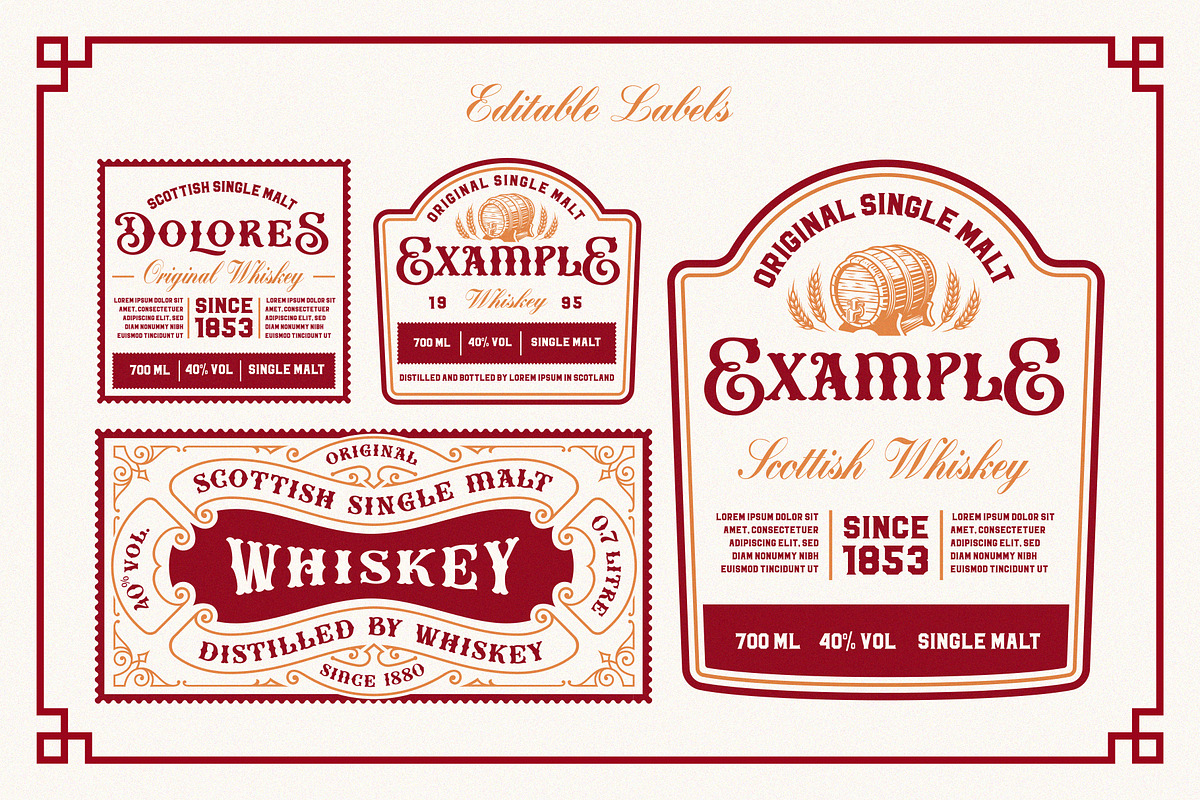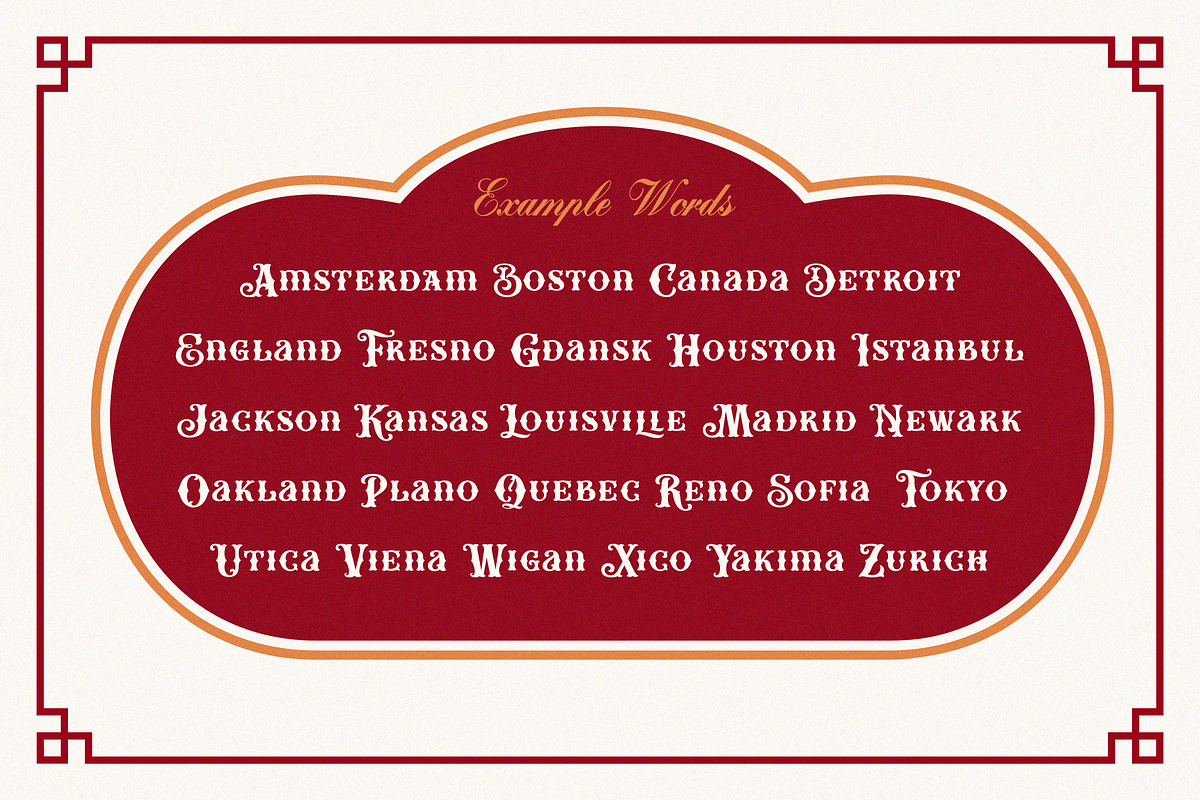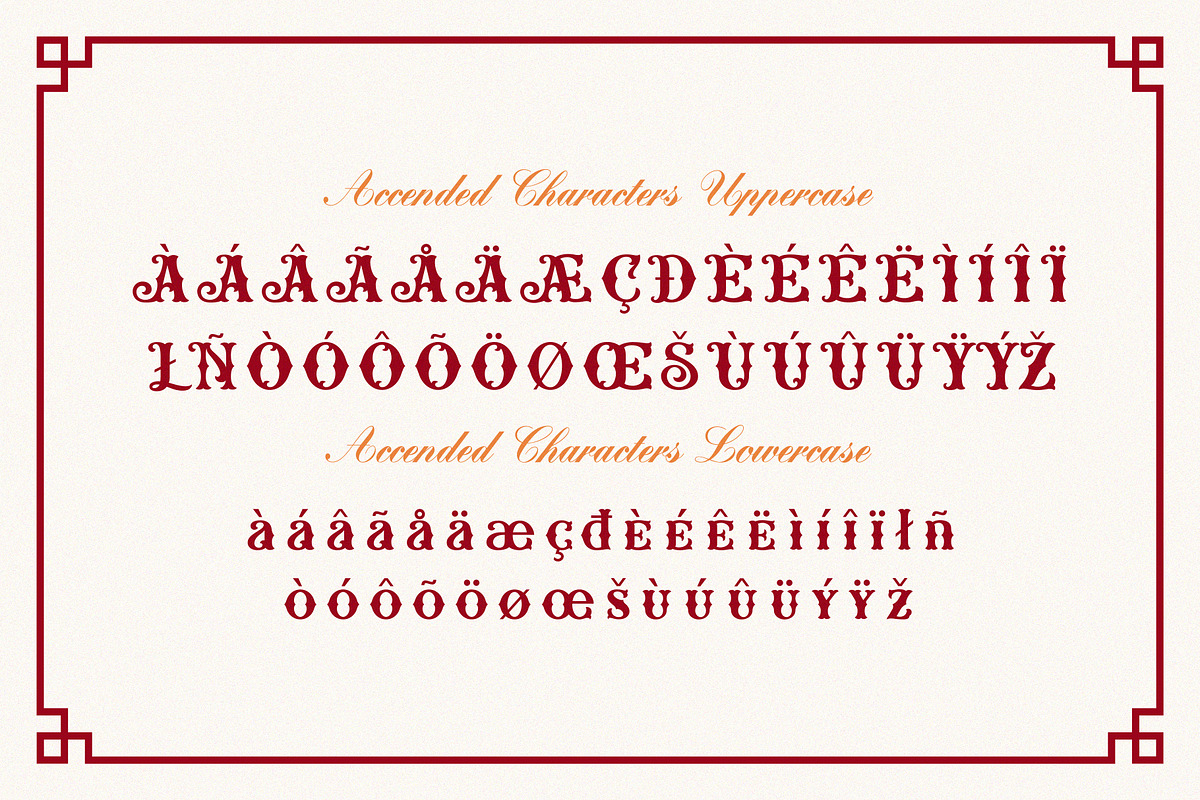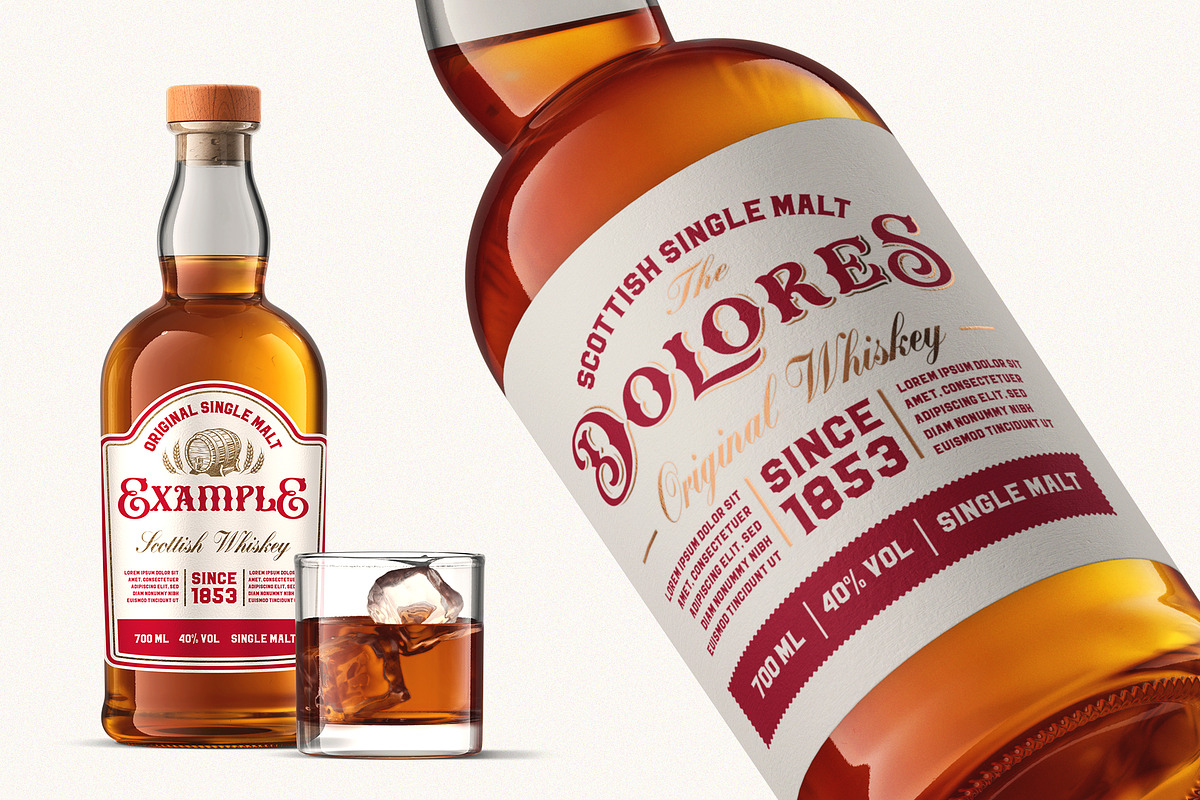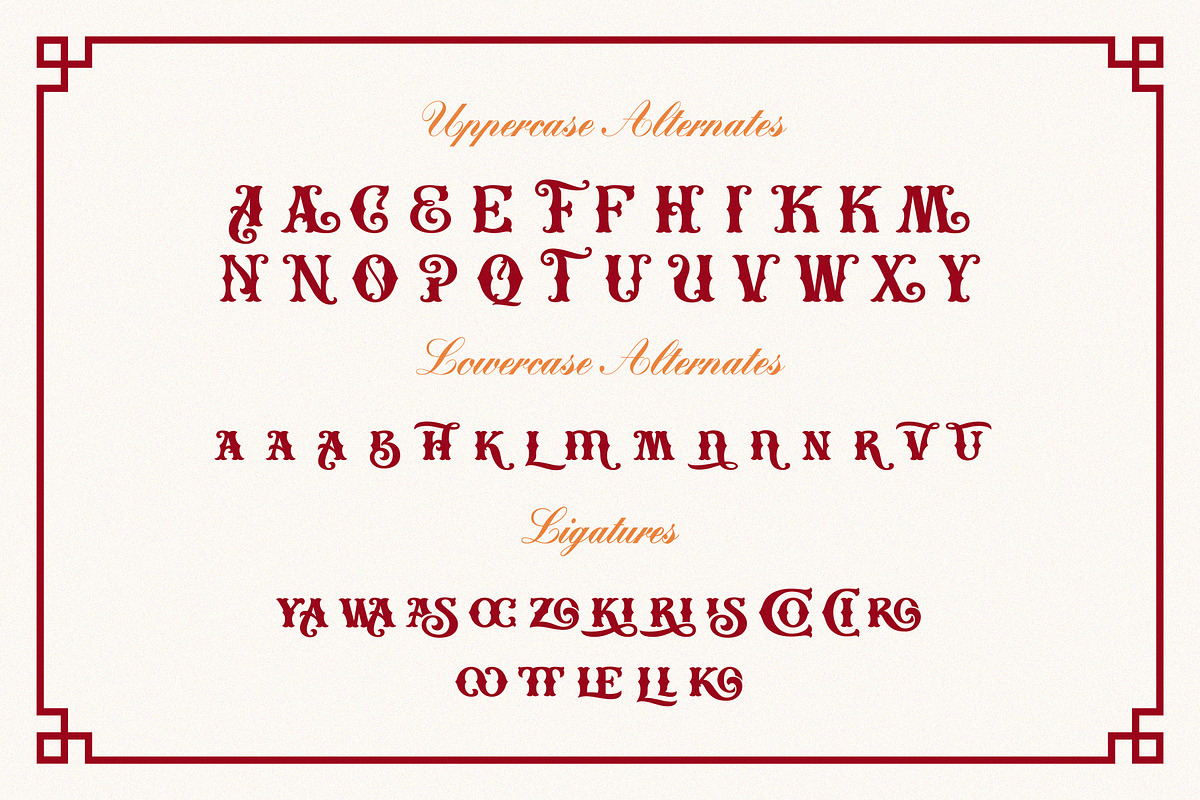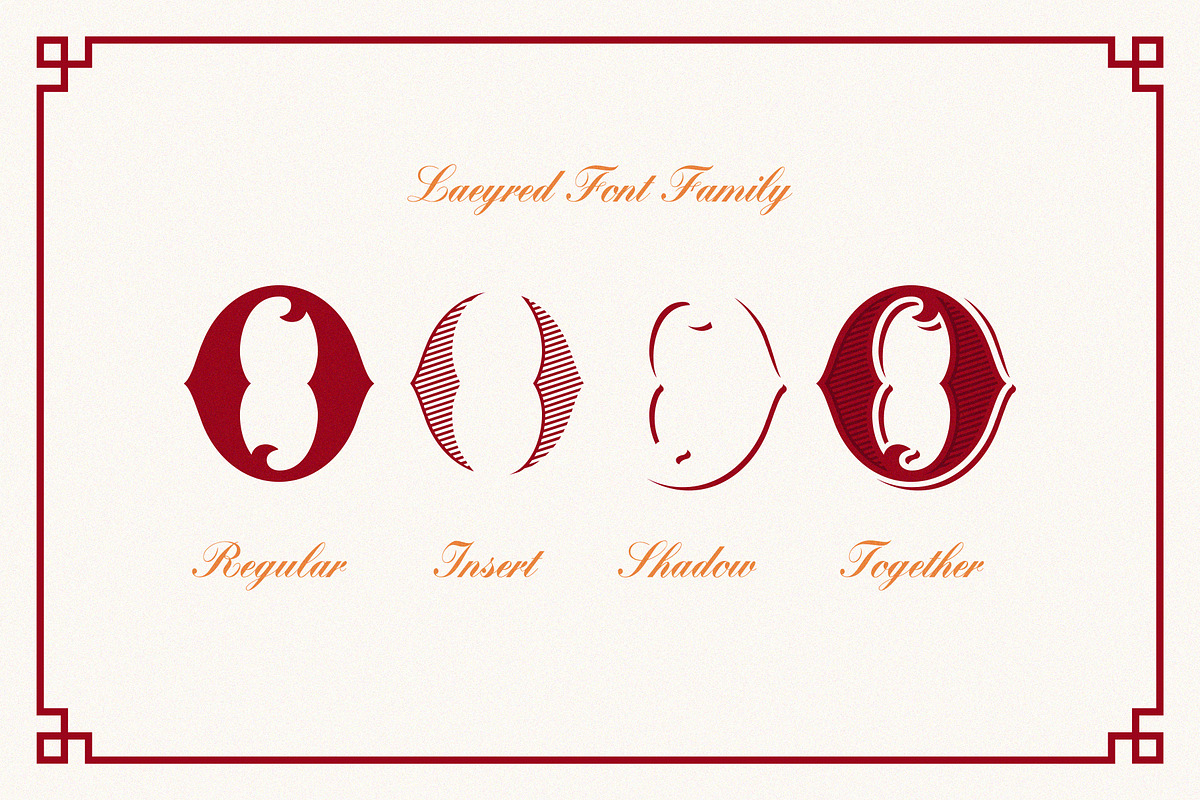
Brooks Vintage Font
Brooks is an old fashioned font family inspired by vintage alcohol labels and packages as well as the old signboards. The font works well with normal size text but looks better for large headlines and short words. Perfect for many creative products such as logos, headlines, packaging, alcohol labels, and many other uses.
The Brooks is a layered font and it includes 3 different styles; Regular, Shadow, and Insert so you can combine them with each other and get fancy headlines. The font includes a full set of characters from a-z for lowercase, A-Z for uppercase, set of alternates for each case, ligatures as well as numbers, and minimum punctuations set.
A basic character from A-Z for lowercase and uppercase
Numbers and punctuations
Special alternates and ligatures
Accented characters ( the font supports Western European languages such as; Albanian, Catalan, Danish, Dutch, English, Faroese, Finnish, French, German, Galician, Irish, Icelandic, Italian, Norwegian, Portuguese, Spanish, and Swedish.)